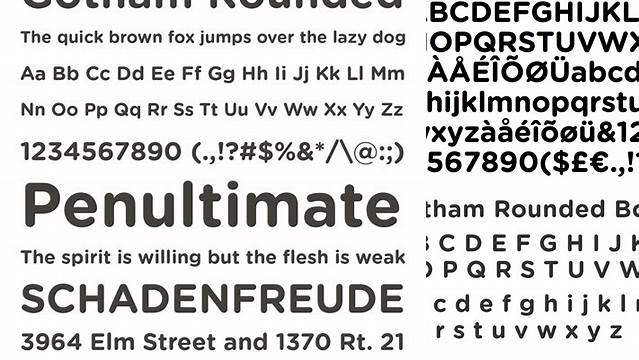
Gotham Rounded Fonts: Free Download Guide & Alternatives
Introduction to Gotham Rounded Fonts
Gotham Rounded fonts have surged in popularity within the design community, celebrated for their modern, approachable, and highly legible aesthetic. Guys, if you're looking to inject a touch of contemporary sophistication into your projects, Gotham Rounded is an excellent choice. This font family, a variant of the renowned Gotham typeface, features softened, rounded terminals that lend it a friendly and inviting feel. Unlike its more angular sibling, Gotham Rounded exudes warmth, making it perfect for a wide range of applications, from user interfaces and websites to branding materials and print designs. Its clean lines and geometric structure ensure optimal readability, whether displayed on screens or printed materials, making it a versatile asset in any designer's toolkit. One of the key reasons for its widespread adoption is its ability to strike a balance between professionalism and approachability. The rounded edges soften the otherwise strict geometric form, creating a typeface that is both modern and inviting. This makes Gotham Rounded particularly well-suited for brands aiming to convey a sense of trustworthiness and innovation. Furthermore, its versatility extends across various design contexts, making it a go-to choice for everything from logos and headlines to body text and captions. Its clarity and legibility ensure that messages are communicated effectively, regardless of the medium. The font's adaptability also means it pairs well with a variety of other typefaces, allowing designers to create harmonious and visually appealing compositions. Whether used in conjunction with a serif font for a classic look or a sans-serif for a more contemporary feel, Gotham Rounded integrates seamlessly, enhancing the overall design aesthetic. This inherent flexibility makes it an invaluable resource for designers seeking a reliable and stylish typeface that can be used across multiple projects and platforms.
Why Choose Gotham Rounded?
When diving into the world of typography, the font you select can significantly impact the overall look and feel of your design. Gotham Rounded offers a unique blend of modernity and approachability, making it a standout choice for numerous projects. So, why should you consider Gotham Rounded? First and foremost, its legibility is exceptional. The clean, geometric structure, combined with the softened, rounded terminals, ensures that text remains clear and readable across various sizes and media. This is crucial for user interfaces, websites, and print materials, where clarity is paramount. Think about how often users skim through content online; a font that's easy on the eyes can make all the difference in engagement and comprehension. Beyond legibility, Gotham Rounded exudes a sense of modern sophistication. The rounded edges add a touch of warmth to the otherwise structured form, making it feel more inviting and less sterile than some other geometric sans-serif fonts. This balance is particularly valuable for brands that want to convey both professionalism and approachability. Imagine a tech startup aiming to project innovation while maintaining a friendly demeanor; Gotham Rounded fits this bill perfectly. Moreover, the font's versatility is a major advantage. It works beautifully in headlines, body text, logos, and captions. Its adaptability means you can use it consistently across your brand's visual identity, creating a cohesive and professional look. For example, a company might use Gotham Rounded for its logo, website headers, and even the text in its marketing brochures. This consistency helps to reinforce brand recognition and create a unified brand experience. The font also pairs well with a wide range of other typefaces. You can combine it with a serif font for a classic, balanced look or with another sans-serif for a modern, minimalist feel. This flexibility allows designers to experiment and create unique typographic compositions that perfectly match their project's needs. In addition, Gotham Rounded has a strong, yet understated presence. It commands attention without being overly assertive, making it ideal for a variety of applications. Whether you're designing a sleek website, a professional presentation, or a compelling marketing campaign, Gotham Rounded can help you achieve your goals. Its ability to convey both confidence and approachability makes it a versatile and valuable asset for any designer. Finally, the font's widespread recognition and popularity mean that it is often associated with trustworthiness and reliability. Many well-known brands have adopted Gotham Rounded for their visual identities, which can lend your project a sense of credibility and professionalism. So, guys, if you're looking for a font that combines legibility, versatility, and a modern aesthetic, Gotham Rounded is definitely worth considering.
Free Alternatives to Gotham Rounded
If you're hunting for that sleek, modern vibe of Gotham Rounded but need a free alternative, you're in luck! The design world is teeming with fantastic options that capture a similar feel without costing you a dime. Guys, finding the right font is like finding the perfect ingredient for a recipeâit can truly make or break your final product. One of the most popular free alternatives is Montserrat. This typeface, designed by Julieta Ulanovsky, boasts a geometric sans-serif structure with a contemporary touch. Its clean lines and balanced proportions make it incredibly versatile for a wide range of applications, from website headers to body text. Montserrat's rounded terminals provide a similar warmth and approachability to Gotham Rounded, making it an excellent choice for projects that need a friendly yet professional feel. Think of it as Gotham Rounded's slightly more laid-back cousinâstill stylish, but with a touch more personality. Another standout alternative is Nunito. Created by Vernon Adams, Nunito is a well-rounded sans-serif font with a distinct character. Its rounded terminals and soft curves give it a playful yet legible appearance, making it ideal for both digital and print designs. Nunito's versatility shines through in its various weights, allowing you to create visual hierarchy and add depth to your typography. Whether you're designing a website, a mobile app, or a marketing brochure, Nunito can help you achieve a polished and engaging look. Itâs like that friendly neighbor who always has a smile on their faceâapproachable and reliable. Lato is another fantastic option to consider. Designed by Ćukasz Dziedzic, Lato is a sans-serif typeface with semi-rounded details that give it a warm and inviting feel. Its well-defined letterforms ensure excellent readability, even at small sizes, making it a great choice for body text. Lato's neutral yet stylish appearance makes it a versatile workhorse for a variety of design projects. Itâs the kind of font that quietly gets the job done without drawing too much attention to itselfâreliable and efficient. Open Sans is also worth exploring. This humanist sans-serif typeface, designed by Steve Matteson, is known for its clean and open letterforms, which contribute to its excellent legibility. Open Sans is highly versatile and works well in a variety of contexts, from websites and apps to print materials. Its neutral and friendly appearance makes it a safe bet for projects that require a clear and readable typeface. Open Sans is like the dependable friend whoâs always there to lend a handâsteady and trustworthy. Poppins is another gem in the world of free fonts. This geometric sans-serif typeface, designed by the Indian Type Foundry, features clean, minimalist lines and a contemporary aesthetic. Poppinsâ rounded letterforms give it a friendly and approachable feel, making it a great alternative to Gotham Rounded. Its versatility makes it suitable for a wide range of design projects, from logos and branding to websites and print materials. Poppins is like that cool, modern friend who always knows the latest trendsâstylish and up-to-date. When choosing a free alternative, it's important to consider the specific needs of your project. Think about the overall tone and message you want to convey, as well as the context in which the font will be used. Each of these alternatives offers a slightly different flavor, so experimenting with a few options can help you find the perfect fit. And remember, guys, the best font is the one that helps you communicate your message effectively and beautifully. By exploring these free alternatives, you can achieve the Gotham Rounded aesthetic without breaking the bank.
How to Use Gotham Rounded in Your Designs
So, you've got Gotham Rounded or a fantastic free alternative ready to go. Now, how do you actually use it in your designs to create that polished, professional look? Guys, the secret to great typography isn't just about picking a nice font; it's about how you wield it. First off, let's talk about hierarchy. Gotham Rounded is super versatile, but like any font, it shines brightest when used strategically. Think about using it for headings and subheadings to grab attention, while pairing it with a more readable font for body text. This contrast creates a visual hierarchy that guides the reader's eye and makes your content more digestible. For example, you might use Gotham Rounded Bold for your main headlines, Gotham Rounded Medium for subheadings, and a font like Open Sans or Lato for the body text. This combination provides a clear visual distinction between different levels of content, making your design more organized and engaging. Next up, pairing is key. Gotham Rounded plays well with others, but some pairings are just chef's kiss. Consider pairing it with a serif font like Merriweather or Playfair Display for a classic, sophisticated look. The contrast between the geometric sans-serif of Gotham Rounded and the elegant serifs creates a balanced and visually appealing composition. This combination works particularly well for projects that require a touch of formality, such as invitations, brochures, or high-end websites. Alternatively, you can pair Gotham Rounded with another sans-serif font for a modern, minimalist feel. Fonts like Montserrat or Nunito, which we discussed earlier, are excellent choices. The key is to choose a sans-serif that complements Gotham Rounded without being too similar. Look for subtle differences in weight, letter spacing, or overall style to create visual interest. This approach is ideal for projects that aim for a clean, contemporary aesthetic, such as tech websites, mobile apps, or branding materials. Now, letâs dive into legibility. Gotham Rounded is known for its clarity, but you still need to pay attention to things like font size, line height, and letter spacing. Make sure your text is easily readable, especially in body copy. A good rule of thumb is to use a font size of at least 16 pixels for body text on the web and to adjust the line height to create adequate vertical spacing between lines. Also, be mindful of letter spacing, especially in headings. Adjusting the letter spacing can help improve readability and create a more polished look. Too much letter spacing can make the text feel disjointed, while too little can make it appear cramped. In terms of color, contrast is your best friend. Make sure your text has sufficient contrast with the background to ensure readability. This is particularly important for users with visual impairments. Use a color contrast checker to verify that your text meets accessibility standards. White text on a dark background or dark text on a light background are generally safe choices, but feel free to experiment with other color combinations as long as the contrast remains adequate. Don't forget about consistency. Use Gotham Rounded consistently throughout your project to create a cohesive visual identity. This means using the same font weights, sizes, and styles across all your designs. Consistency helps to reinforce brand recognition and create a professional look and feel. For example, if you use Gotham Rounded Bold for your main headings on your website, use it for your main headings in your brochures and social media graphics as well. Finally, experiment! Don't be afraid to try different combinations and see what works best for your project. Typography is a crucial element of design, and mastering it takes practice. Play around with different font pairings, sizes, and styles to develop your own unique typographic voice. And remember, guys, the goal is to create a design that is not only visually appealing but also effectively communicates your message. By following these tips, you can harness the power of Gotham Rounded and its alternatives to create stunning and impactful designs.
In conclusion, Gotham Rounded fonts offer a blend of modernity, approachability, and legibility that makes them a favorite among designers. Guys, whether you're working on a branding project, a website, or any other design endeavor, Gotham Rounded can bring a touch of contemporary elegance to your work. While the original Gotham Rounded font family is a premium offering, the numerous free alternatives available ensure that you can achieve a similar aesthetic without breaking the bank. Fonts like Montserrat, Nunito, Lato, Open Sans, and Poppins provide excellent options for capturing the essence of Gotham Rounded's clean, geometric style with softened, rounded terminals. These alternatives offer versatility and readability, making them suitable for a wide range of applications. When searching for free fonts, it's crucial to prioritize reputable sources and pay close attention to licensing terms. Websites like Google Fonts, Font Squirrel, and DaFont offer a wealth of free fonts, many of which are available for commercial use. Always ensure that you understand the licensing agreement before incorporating a font into your project to avoid any potential legal issues. Utilizing free trials and promotional downloads from font foundries is another avenue to explore. Platforms like MyFonts, Fontspring, and Adobe Fonts occasionally offer temporary promotions where select fonts are available for free or at a discounted rate. These trials can provide a valuable opportunity to experiment with different typefaces and assess their suitability for your design needs. In addition to finding the right font, mastering the art of typography involves understanding how to effectively use fonts in your designs. Creating visual hierarchy, pairing fonts strategically, and ensuring legibility are key considerations. Gotham Rounded and its alternatives work well in a variety of contexts, but thoughtful application is essential to achieving a polished and professional look. Experimentation is also crucial. Don't be afraid to try different font combinations, sizes, and styles to discover what works best for your project. Typography is a dynamic and evolving field, and exploring different options can lead to exciting and innovative design solutions. Ultimately, the goal is to select fonts that not only look visually appealing but also effectively communicate your message to your audience. Gotham Rounded and its free alternatives provide a solid foundation for achieving this goal, offering a balance of style, clarity, and versatility. By carefully considering your design needs and exploring the available options, you can create impactful and engaging designs that resonate with your target audience. So, guys, embrace the world of typography, explore the possibilities, and let your creativity shine.